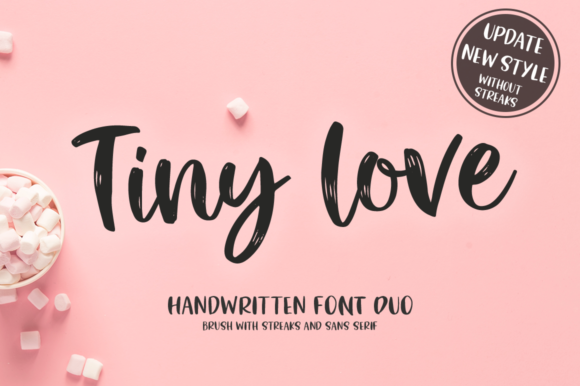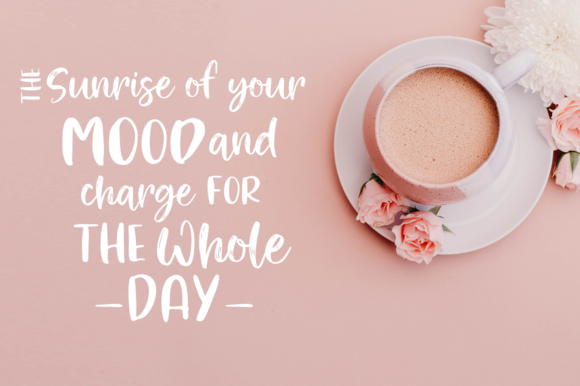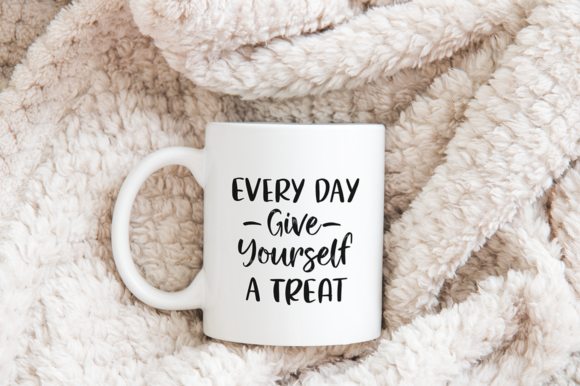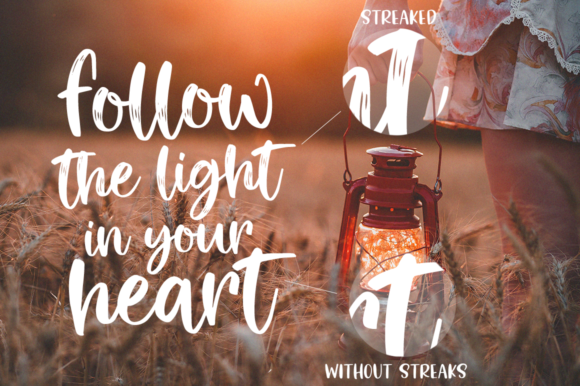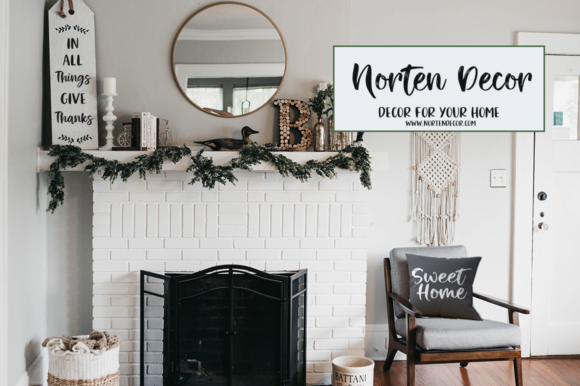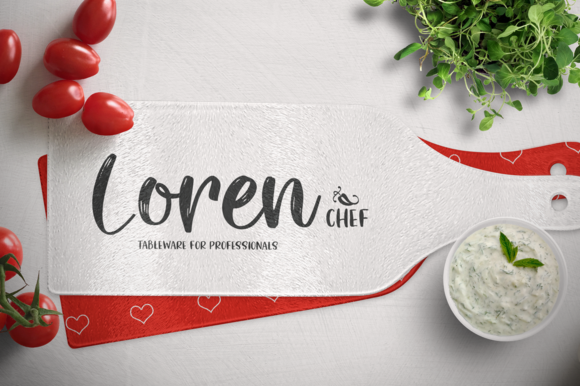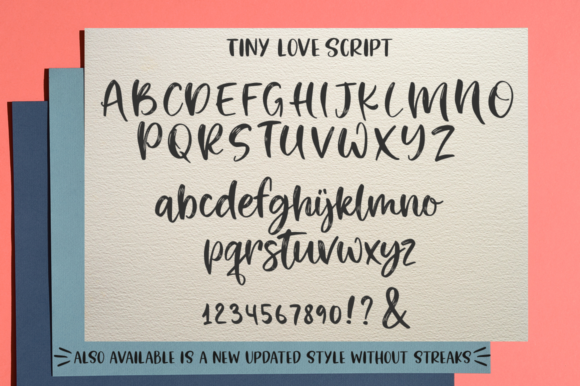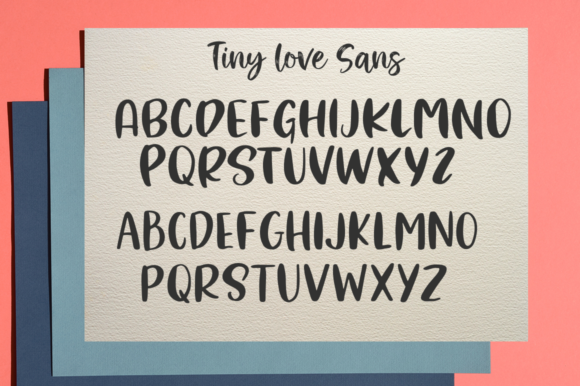
Tiny Love Duo Font
About Tiny Love Duo Font
The Tiny Love is an elegant font duo. It comes in a script and sans version which can be combined perfectly.
Both variations can be used for branding, logos, invitations, book covers, and much more!